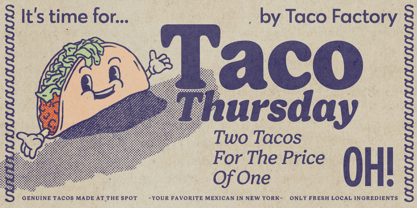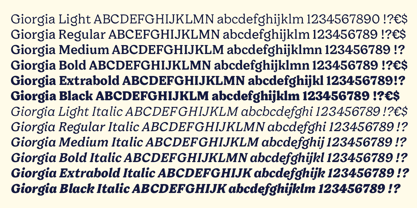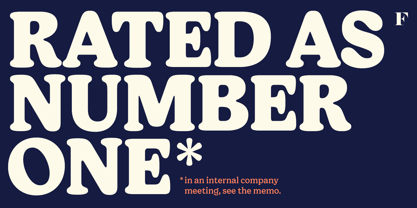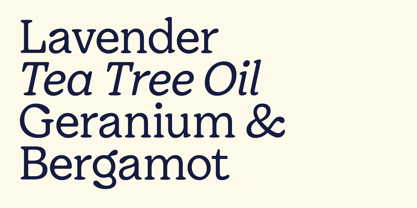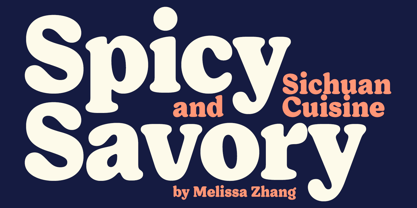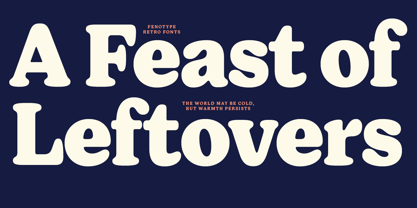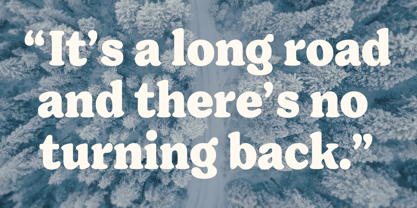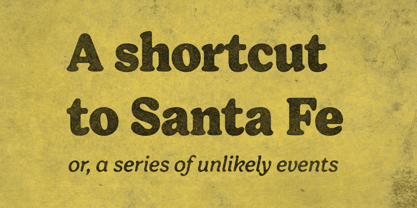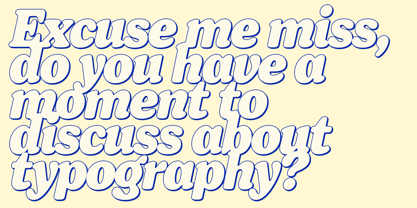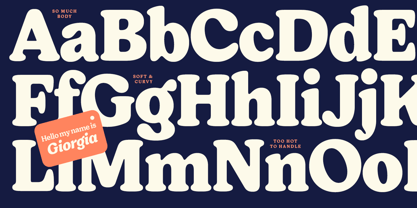
Giorgia
by Fenotype
The Giorgia Font Family was designed by Emil Karl Bertell, Erik Jarl Bertell, Teo Tuominen and published by Fenotype. Giorgia contains 12 styles and family package options. More about this family
When times are hard, softness calls. Giorgia stands apart from the sea of anonymous corporate sans-serifs, bringing back a sense of warmth we’ve been missing—without sacrificing modern performance. With six weights and matching italics, it delivers clarity with character and legibility you can rely on. From packaging to mobile apps to tech branding, Giorgia feels right at home—distinctive, approachable, and built for today.
Designers: Emil Karl Bertell, Erik Jarl Bertell, Teo Tuominen
Foundry: Fenotype